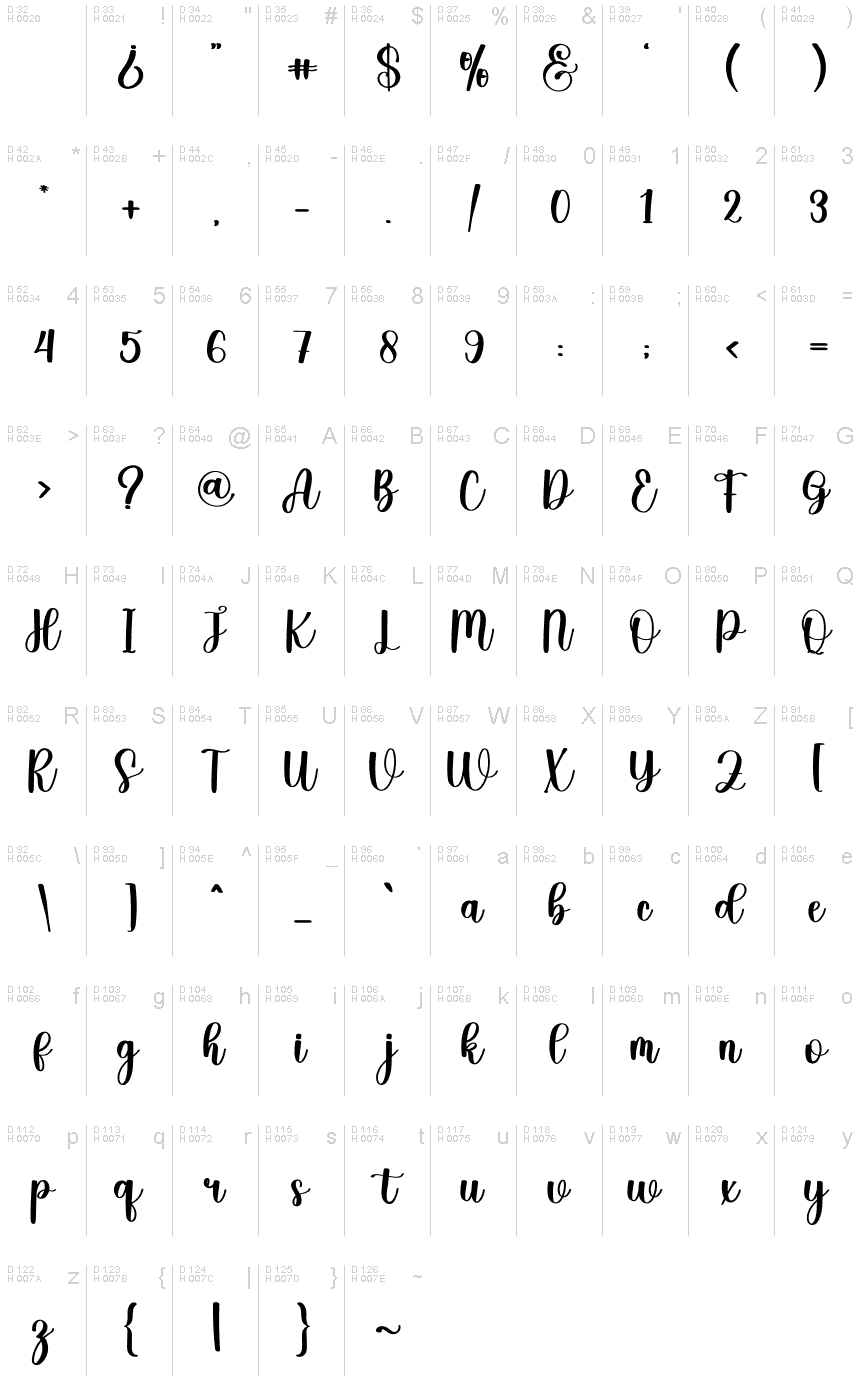
Tallenta
Tallenta, a mesmerizing calligraphy font by FreshtypeINK, effortlessly captures elegance and sophistication. With its graceful curves and flowing strokes, this font exudes creativity and refinement. Perfect for wedding invitations, luxurious branding projects, or stylish logo designs, Tallenta adds a touch of class to any project. Its versatility shines through in editorial layouts, fashion magazines, and high-end packaging designs. The semi-bold font style ensures legibility while maintaining an air of uniqueness. Embrace the allure of Tallenta to elevate your projects with its timeless beauty and impeccable charm.